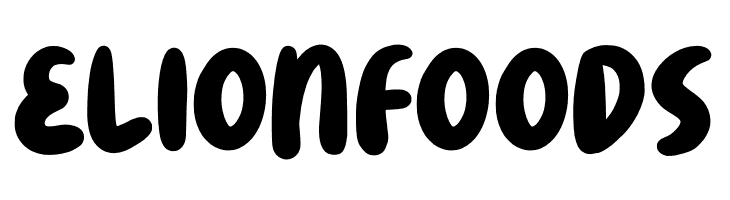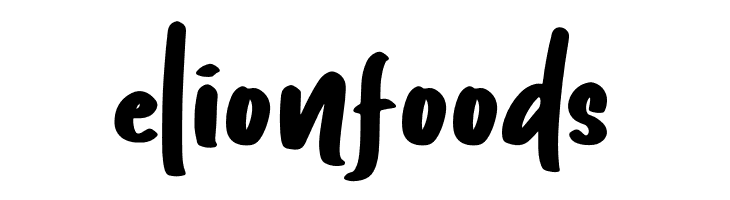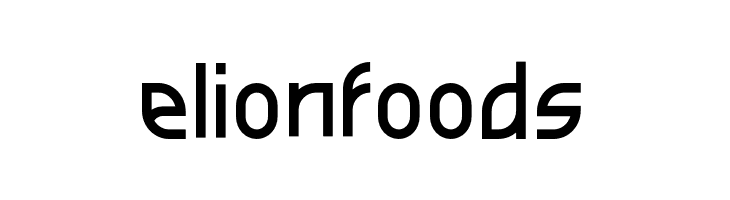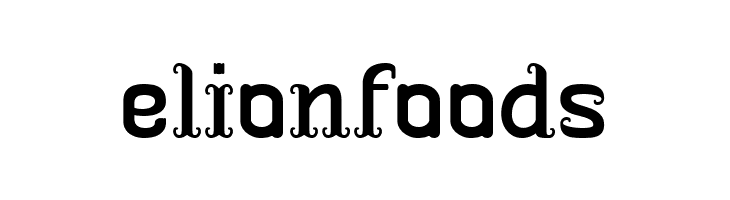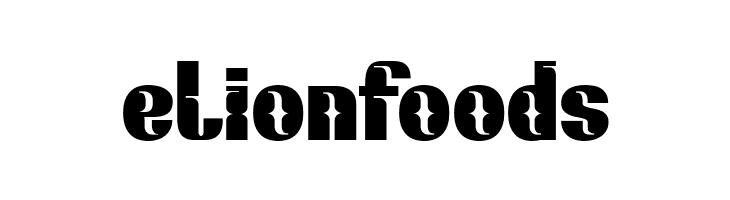
A modern, geometric font with clean lines and rounded edges.
A bold, angular typeface with a futuristic and dynamic style.
A bold, decorative font with unique embellishments and a playful edge.
A bold, playful font with rounded edges and a chunky, whimsical style.
A playful, bold script font with a handwritten style.
An elegant, cursive font with a sophisticated, handwritten style.
A playful, handwritten font with smooth curves and a casual style.
A bold, decorative slab serif font with playful curls and a vintage-modern appeal.
A bold, geometric font with a modern and edgy style.
A bold, angular font with a geometric and modern style.